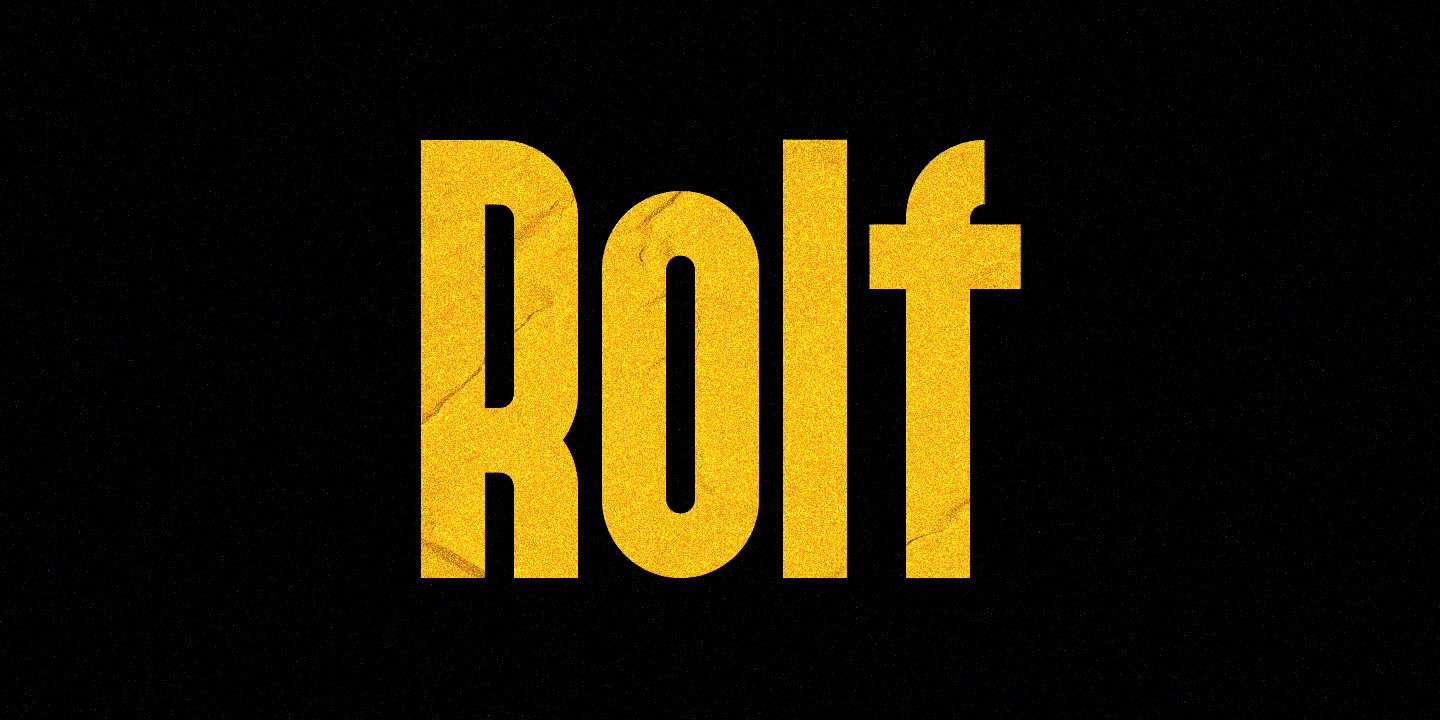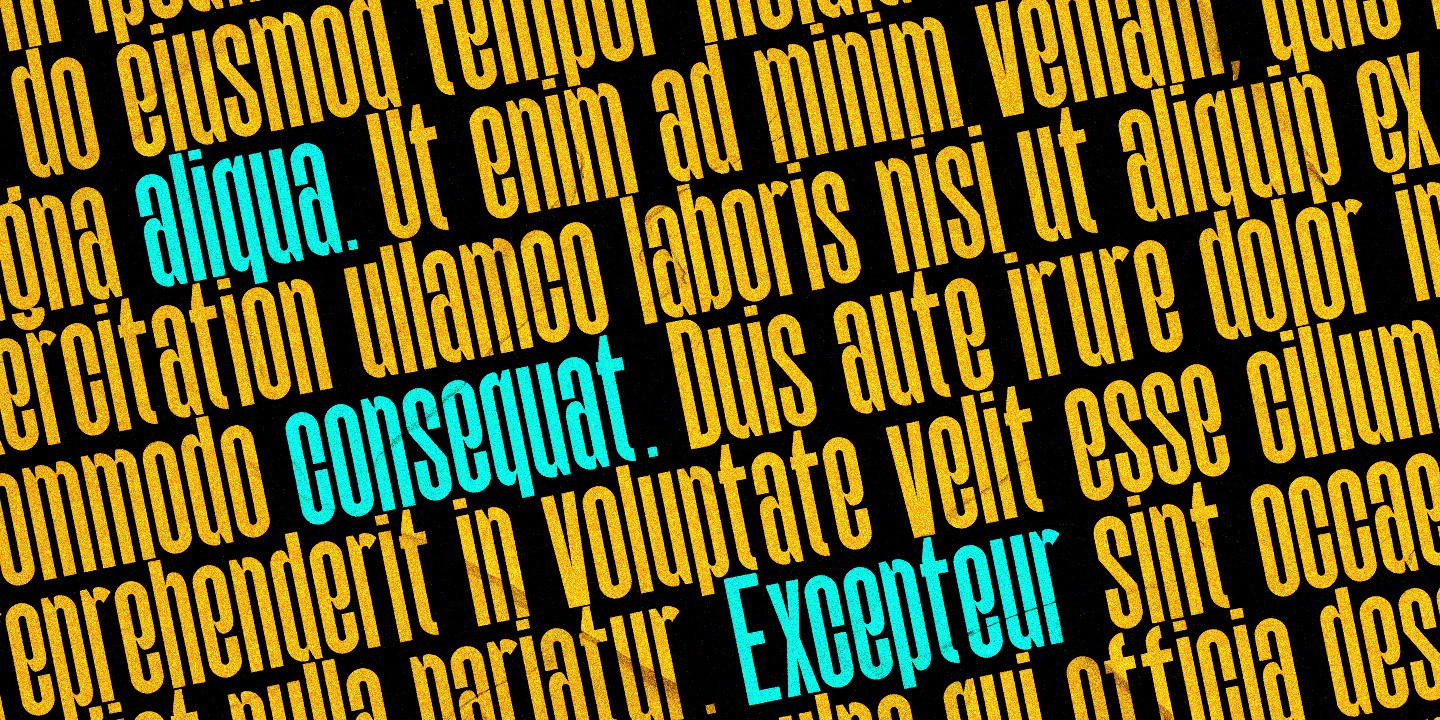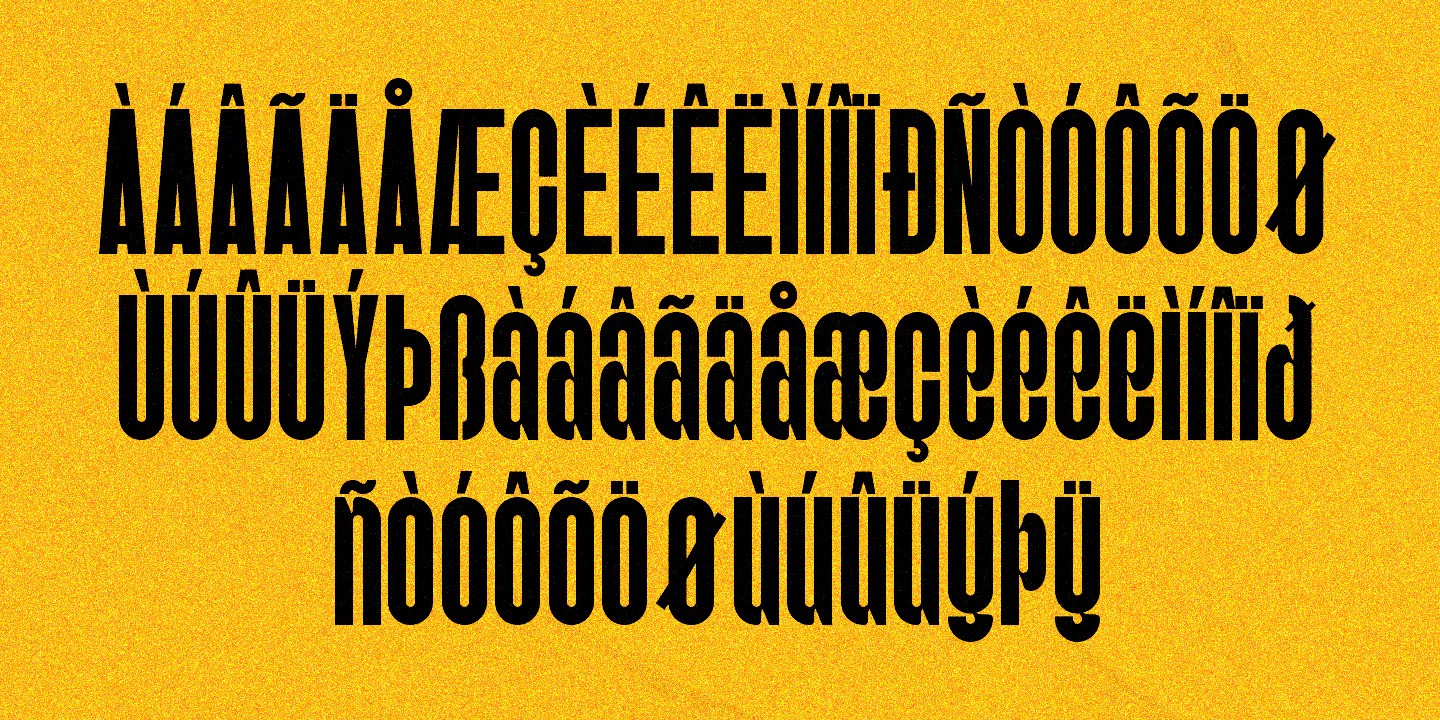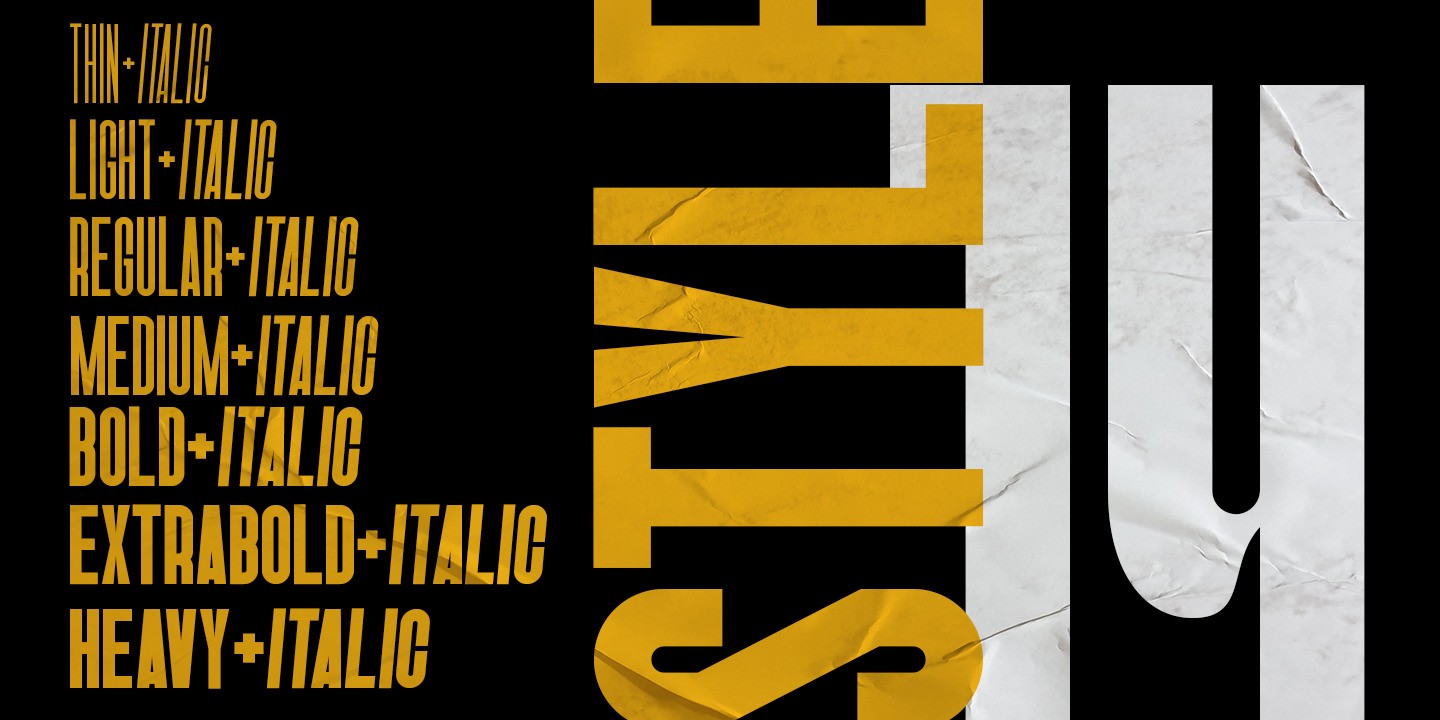
Rolf Font
About Rolf Font
I’m a typographer and graphic designer who’s always testing out new typefaces. While looking for something narrow and bold for a branding project, I came across Rolf Font. It stood out right away. The clean structure, condensed width, and sharp style felt right for the message I wanted to build. I used it for a tech-focused logo and headline layout. Once I saw how it handled balance and spacing in the design, I knew I had to write this review. If you’re exploring typefaces that can carry weight without taking up space, this font is one to try.
What Is Rolf Font and Who Designed It?
Rolf Font is a geometric, display condensed typeface created by Candi Erwanto and published by MysticalType. It includes 14 distinct styles, covering weights from regular to bold, as well as italic options. The structure is narrow but balanced, giving each letter a strong presence without feeling crowded. This makes it ideal for posters, headers, and large text designs where space matters but impact can’t be lost.
The italics in Rolf are especially well done. They were designed with precise angles and stroke compensation to keep the shapes clean even on a slant. It’s clear that each version was crafted with care. Rolf supports extended Latin, which means it works well in Western, Central, and Eastern European languages. The design uses modern principles, blending minimalist structure with thoughtful styling.
Candi Erwanto has created many fonts, but Rolf feels unique. It’s both functional and polished. The character details stand out. It’s the kind of typeface that fits a variety of roles—from sleek magazine headlines to minimalist branding. If you enjoy exploring thousands of fonts, this one earns a top spot.
Features of Rolf Free Font
Rolf Font includes 14 styles, covering regular, medium, and bold weights along with matching italics. Each font file is an OpenType font, meaning it works smoothly across design software. The characters are clean and neutral, with just enough shape to carry personality.
Each letter is shaped with a strong vertical axis and minimal width, keeping the flow tight and uniform. The typography sets of Rolf are great for projects that need order and structure without losing creativity. Headlines, posters, and product packaging all benefit from its geometry.
For anyone into font details, you’ll notice the spacing is well-tuned out of the box. Whether you’re using Rolf Bold Font or Rolf Regular Font, the consistency holds. The character map in the sections gives a full view of its range. If you’re into modern typography, this font delivers quality and structure.
Rolf Font is built for high-visibility design. It works best where text needs to make a statement without getting flashy. Think branding, headers, posters, and editorial layouts. I’ve used it on a clean logo and a homepage hero text. It keeps your message sharp and readable.
If you’re building something digital, the font fits smoothly into web design. Because it’s a geometric condensed typeface, it helps conserve space in UI design or mobile layouts. For those creating packaging or product labels, the bold weight gives strong shelf appeal. Want to elevate your designs with Rolf? Use it in clean, modern environments where order matters.